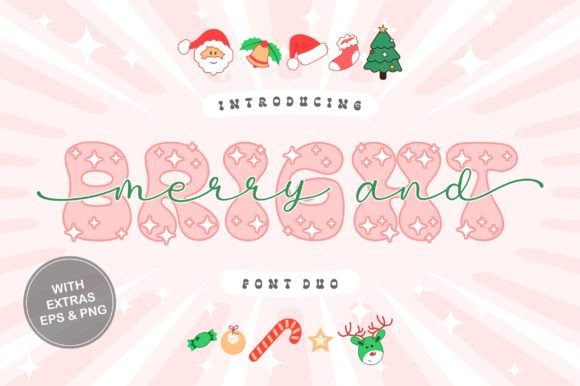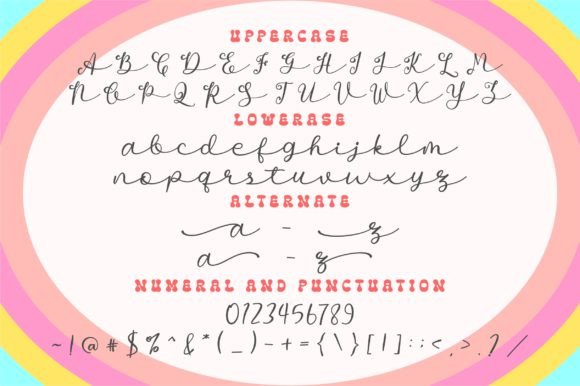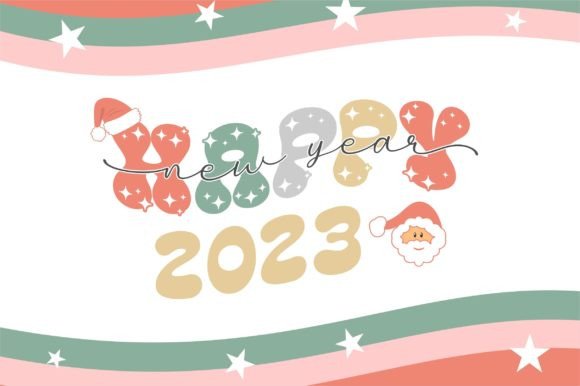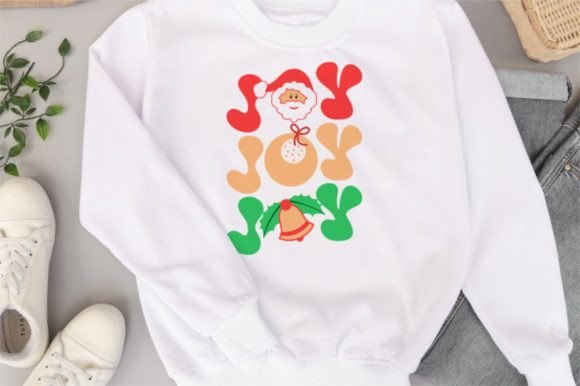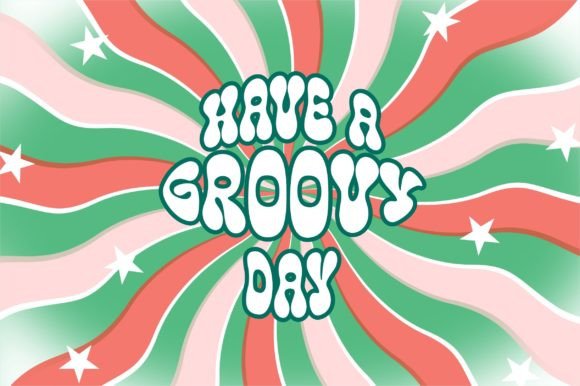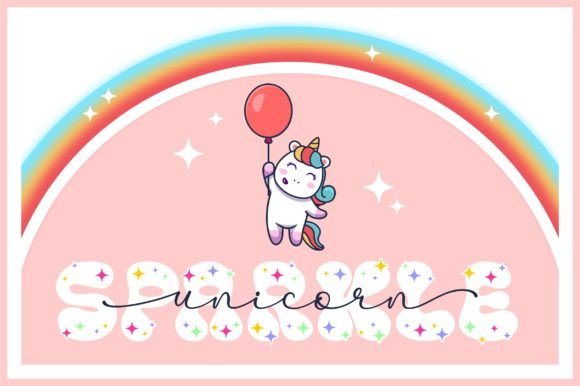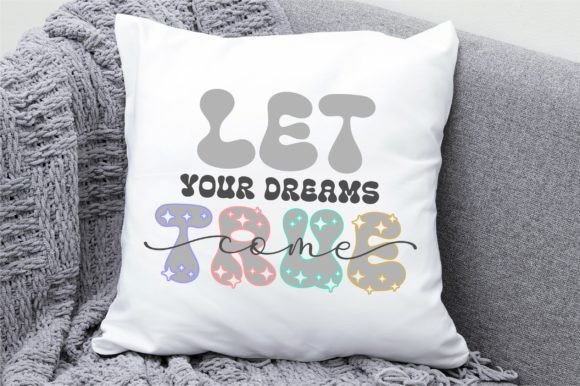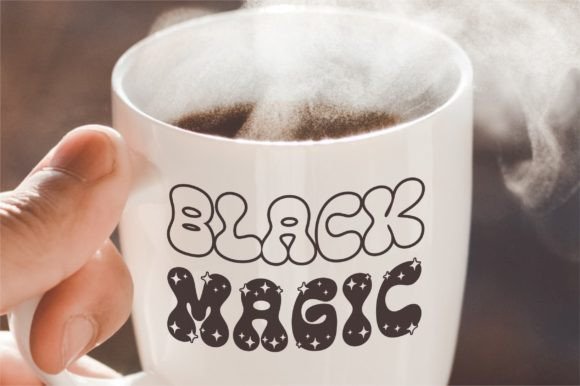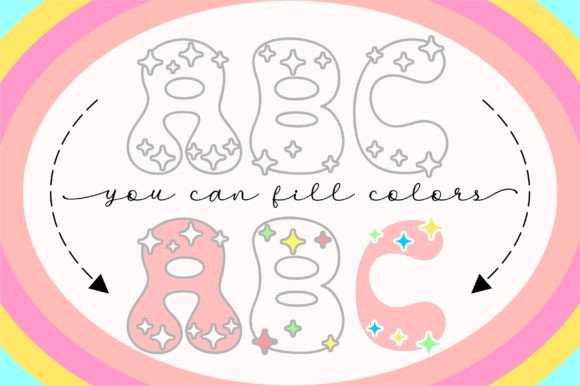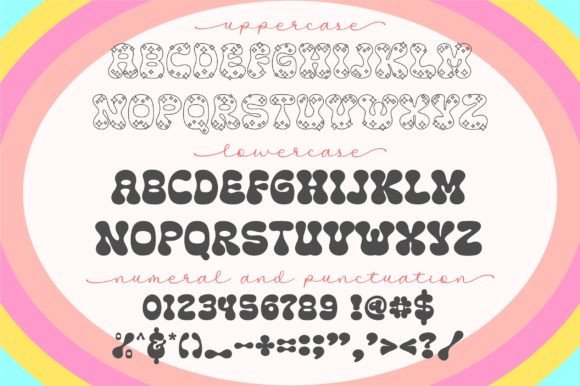
Merry and Bright Duo Font
Merry and Bright Handwritten Font – Sweet and Festive Typeface
The Merry and Bright Handwritten Font is a cheerful and versatile font duo created to bring joy and warmth to your festive projects. With a combination of script and decorative styles, it offers endless creative possibilities. Whether you’re designing holiday cards, invitations, or seasonal posters, this font duo ensures your designs shine with charm.
A Handwritten Duo with Festive Vibes
The Merry and Bright Handwritten Font blends an elegant script with a playful decorative style. This combination makes it stand out, while maintaining readability. Its sweet and festive look makes it especially useful for seasonal projects where personality and warmth are essential.
Perfect for Christmas Designs
One of the most popular uses of the Merry and Bright Handwritten Font is in Christmas-themed projects. Greeting cards, gift tags, and holiday posters come alive with its festive strokes. At the same time, it adapts well to logos, invitations, and quotes, giving them a magical handwritten touch.
The Merry and Bright Handwritten Font adapts beautifully across a wide range of design contexts. From branding and product packaging to social media posts and event signage, it provides a festive handwritten style that stands out. Its dual-script combination makes it flexible for both decorative and professional uses.
Why Designers Love Merry and Bright Font
Designers love the Merry and Bright Handwritten Font because it mixes festive cheer with practicality. Its script and decorative duo style makes it unique, while its readability keeps it functional. This balance ensures it is a favorite choice for holiday and year-round projects alike.